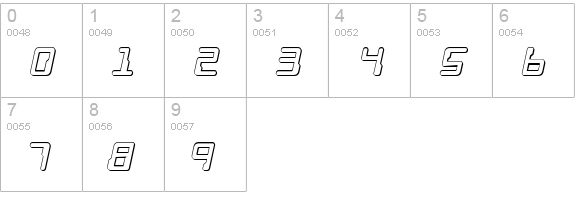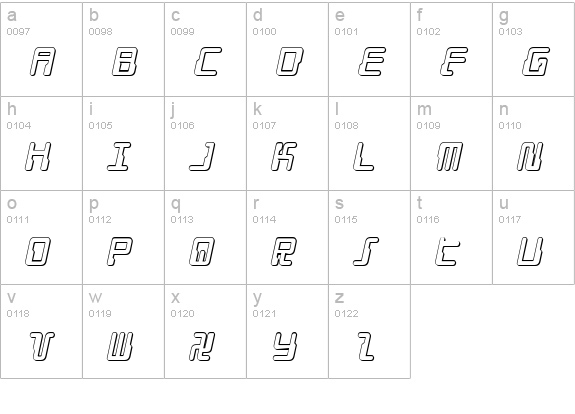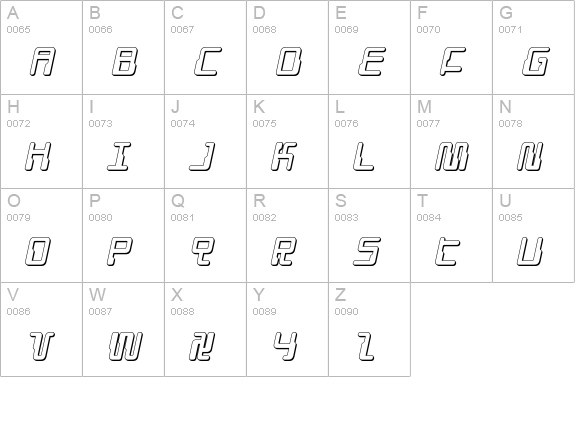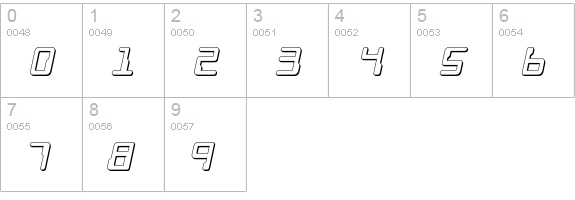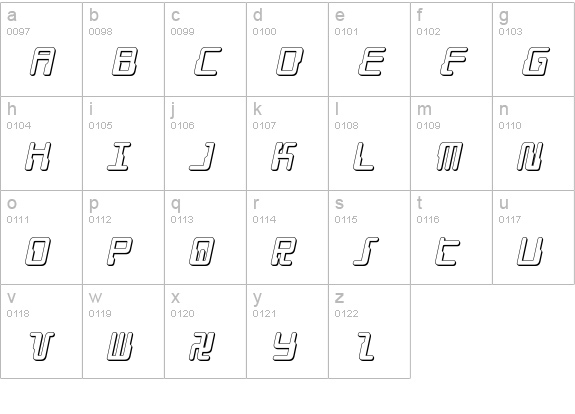
Droid Lover 3D Italic is a distinctive, italic variant in the Droid typeface family \xE2\x80\x94 well suited to design and typography projects.
Droid Lover 3D Italic font is a stunning display typeface that exudes a futuristic and tech-savvy vibe. With its sleek design and three-dimensional effect, this font is perfect for projects that require a modern and edgy look. The italic style adds a touch of elegance and sophistication to any text, making it stand out from the crowd. What's even better is that Droid Lover 3D Italic font is available for free download at FontsMarket.com. Whether you're working on a graphic design project, creating a website, or designing promotional materials, this font will elevate your work to the next level. Don't miss out on this opportunity to add a contemporary flair to your designs with Droid Lover 3D Italic font. Download it now and unleash your creativity!